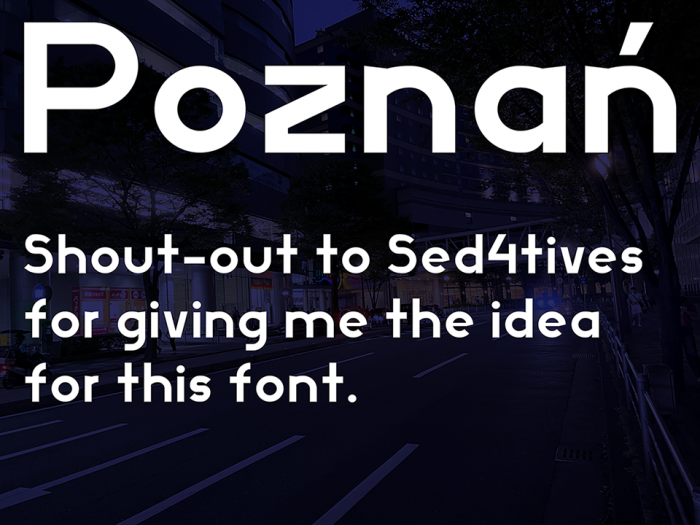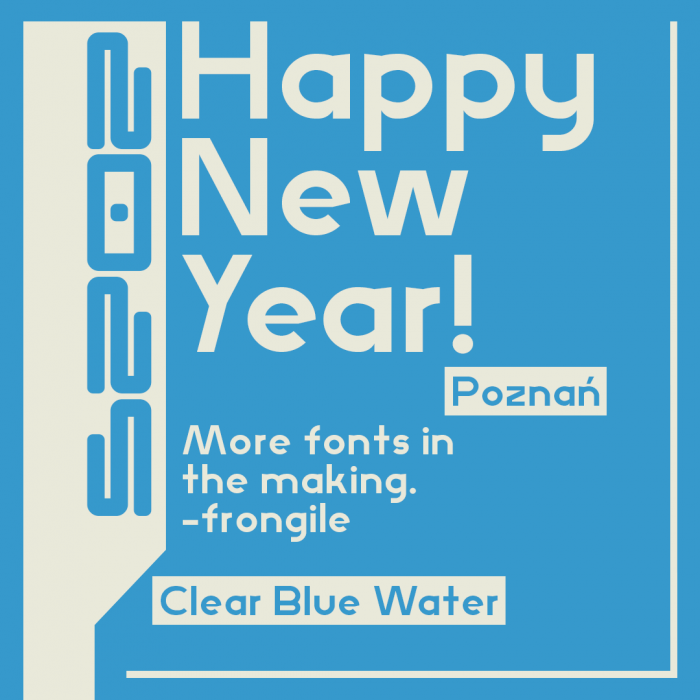
Thanks for the mention @frongile, the font looks nice and clean!
BTW, what exactly was it that had given you the idea, since I have done several sans in this style.. ?!
@Sed4tives: STF_VAN NELLE (Blueprint) was probably my largest influence here, being the reason I suddenly wanted to do a project with a low x-height
Oh, thats why I couldn't grasp its original derivation, basically only really one or two key aspects of the work(s) had set this off I guess? Since its very similar to a handful of my fonts, yet looks nothing like any of those either.